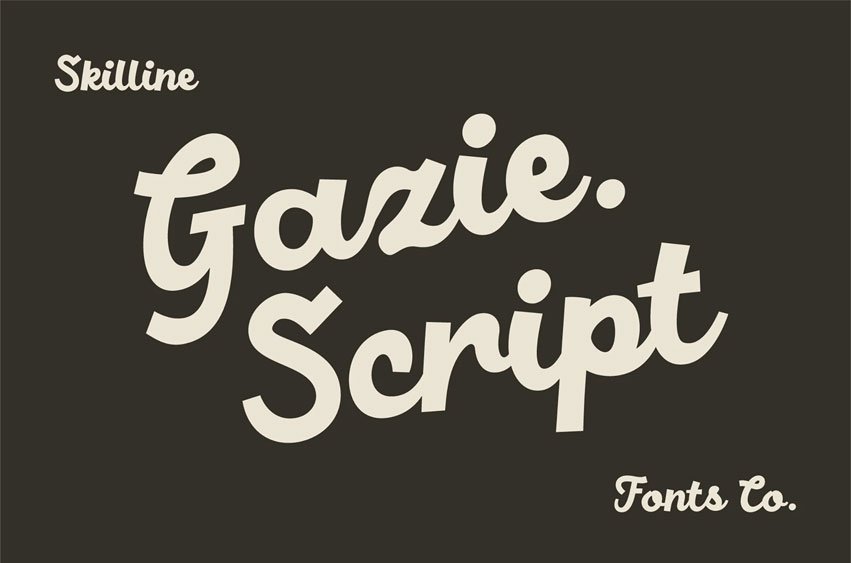
Gazie Script Font
Gazie Script Font is a vintage sport font featuring a bold retro script inspired by classic baseball typography, varsity lettering, and old-school athletic branding.